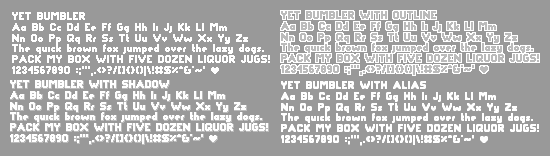
Font name: | Yet Bumbler |
Author: | Hazel Abbiati |
Note by Hazel Abbiati | |
A font specifically made for use in Adventure Game Studios. Best viewed at 9 pixel size. Alias, outline, and shadow fonts are to be layered over the base font. |